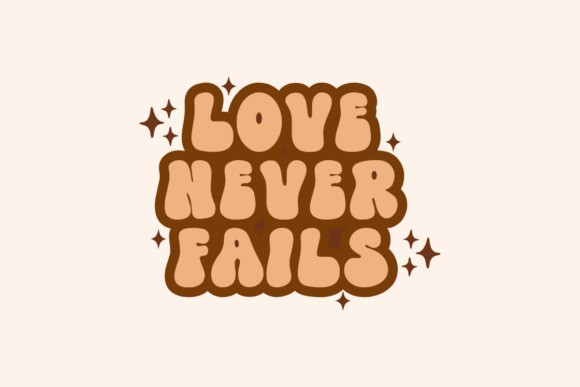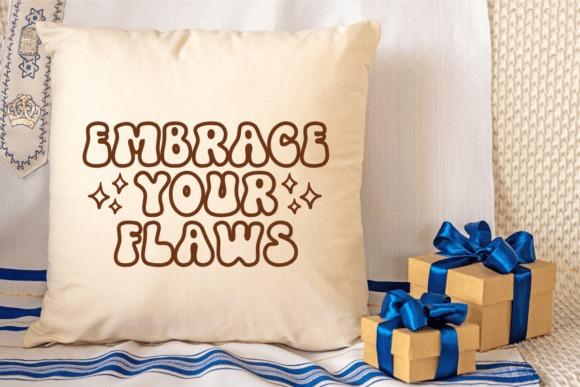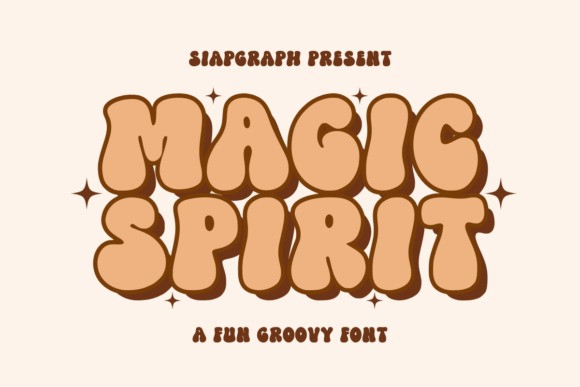
Magic Spirit Font
Magic Spirit Font a bold and fun retro-inspired font! Its smooth, chunky letters radiate vintage vibes, perfect for posters, logos, social media, and all things funky and magical.